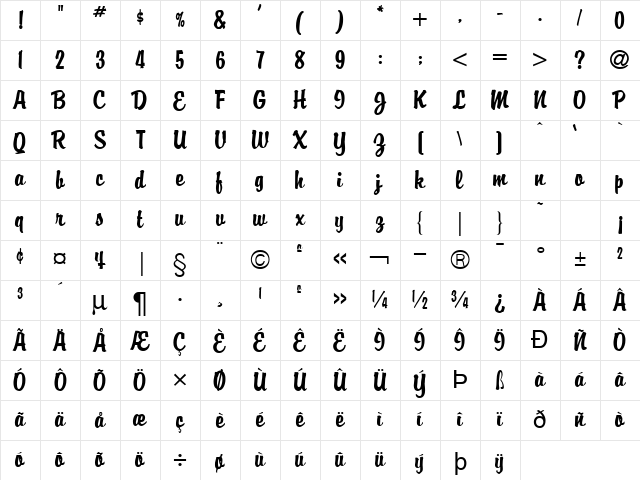
Brisk-Extended Normal Free Font
Brisk-Extended Normal
Brisk-Extended Family
Design Context for Brisk-Extended
Brisk-Extended is a composed and adaptable typeface that performs quietly and consistently across a wide range of design contexts.